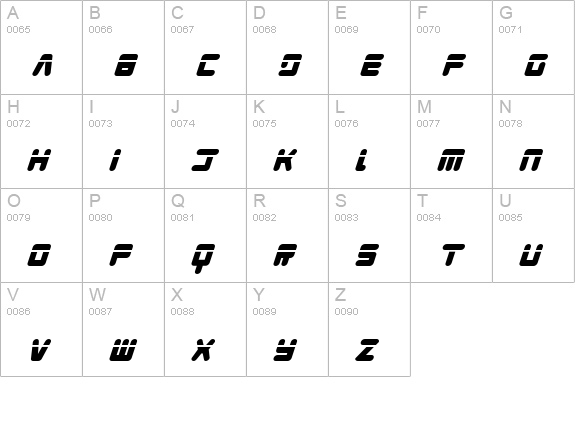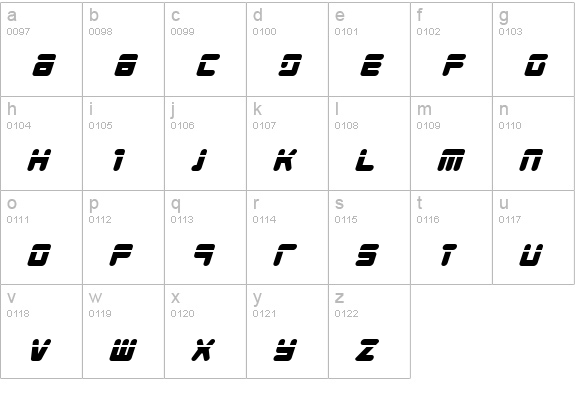
Young Techs Laser Italic Font Details
Young Techs Laser Italic is a distinctive, italic variant in the Young typeface family \xE2\x80\x94 well suited to design and typography projects.
The Young Techs Laser Italic font is a sleek and modern typeface designed for tech-savvy individuals seeking a futuristic touch in their projects. Its sharp, italicized design exudes a sense of innovation and sophistication, making it ideal for digital designs, branding, and technology-focused materials. This font is perfect for creating a cutting-edge look that stands out from the crowd. Whether you're designing a website, presentation, or advertisement, Young Techs Laser Italic font will elevate your work to the next level with its dynamic and contemporary aesthetic. Best of all, this font is available for free download at FontsMarket.com, allowing you to access this stylish typeface without any cost. Don't miss out on the opportunity to enhance your designs with the Young Techs Laser Italic font today!